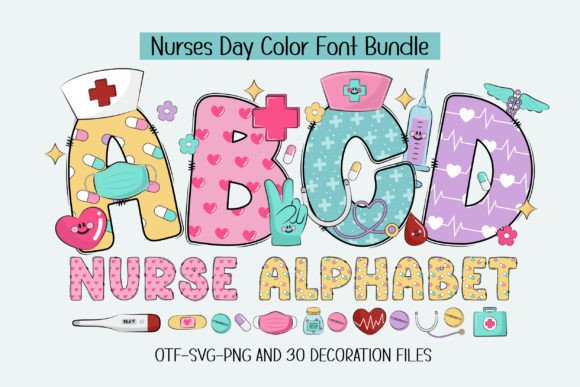
Nurse Alphabet: A Designer’s Honest Review
When I first opened Nurse Alphabet, I was struck by its unusual warmth. It is not often that a display font arrives with such a deliberately soft, approachable presence. The letterforms feel rounded without being childish, generous without being sloppy. There is something almost tactile about the curves—as if the typeface was drawn with a brush that had been dipped in ink and then slightly blotted. It creates an immediate mood: friendly, human, and just a little bit nostalgic. For anyone working on brand identity, logo design, or packaging design that needs to feel personal and trustworthy, this is a typeface that signals care.
Nurse Alphabet belongs to a growing category of color fonts, which means it carries built-in texture, shading, or layered detail. That is both its strength and its limitation. In projects where you want the lettering to do the heavy lifting—where you do not have budget for illustration or elaborate ornamentation—this font can stand alone and still look finished. It is not a neutral workhorse. It is a character. And like any strong character, it works best when you give it room to speak.
Where Nurse Alphabet Naturally Belongs
If you are designing a logo for a small bakery, a children’s brand, a wellness studio, or a handcrafted product line, Nurse Alphabet instantly fits. Its personality is gentle and confident. It does not shout. It invites. That makes it ideal for product labels, packaging design, and merchandise where you want the customer to feel something before they read a single word. I can see it on a jar of honey, a tube of organic lip balm, a tea box, or a set of recipe cards.
It also works well in editorial design when used as a headline or pull quote accent. Paired with a clean serif font or a restrained sans serif font, it introduces contrast without chaos. The trick is to treat it as a premium font—one that should appear intentionally, not everywhere.
For social media graphics and digital ads, Nurse Alphabet holds its own at larger sizes. Its built-in color and texture can reduce the need for additional graphic elements, which speeds up production. If you create Canva templates or printable design assets for other small business owners, this font gives you a ready-made visual hook. The same goes for Cricut projects, where the layered details in the color font can translate into interesting cut or print-then-cut results.
Where to Use It with Care
No typeface is perfect for every job, and Nurse Alphabet asks for thoughtful placement. It is a display font. That means it is not built for long reading passages, dense body copy, or small sizes. If you try to set paragraphs in it, readability will suffer, and the visual charm will turn into visual noise. Keep it for large headlines, short phrases, brand marks, quotes, and decorative accents.
It also works well as a supporting text element—for a single word on a poster, a subhead on a flyer, or a signature-style closing on an invitation. In those roles, it feels intentional rather than overwhelming. The moment you push it into territory that belongs to a more neutral typeface, you risk undermining the very warmth that makes it special.
For premium packaging or editorial design, Nurse Alphabet can elevate the tone when used sparingly. On a product label, a single word set in this font can feel like a hand-stamped mark. On a website header, it can create a memorable first impression. But if every headline is set in it, the effect fades.
Readability, Hierarchy, and Brand Consistency
Readability at display sizes is strong. The letterforms are distinct, and the built-in texture does not interfere with legibility when the font is rendered large enough. However, at small sizes—anything below 24 points, depending on the medium—the details begin to blur. That is typical for color fonts, and Nurse Alphabet is no exception. If you need a font for primary body copy or for tiny legal text on a package, look elsewhere. Pair it with a dependable serif font or a clean sans serif font for those roles.
Hierarchy becomes easier when you use Nurse Alphabet as the anchor. Let it hold the visual weight of the headline while simpler typefaces handle the subheadings and body copy. I have tested it alongside a range of partners: a neutral sans serif font like Work Sans, a warm serif font like Cormorant, a script font that echoes its hand-drawn feel, and even a handwritten font for a layered, informal look. Each pairing gives a different emotional result. The key is to respect the contrast—do not pair it with another typeface that competes for attention.
Brand consistency relies on knowing when to repeat a font and when to let it rest. If Nurse Alphabet becomes the sole voice of your brand identity, every piece of communication will carry its personality. That can be powerful for a small business or a lifestyle brand. But for larger organizations or projects that demand tonal range, it works better as a signature accent—reserved for the logo, key headers, and select marketing visuals.
Practical Designer Notes
Before committing Nurse Alphabet to any client work, I recommend a few simple tests. First, render it in black and white. Even though it is a color font, you need to know how it reads without its built-in color layers. Some color fonts lose their shape when flattened to monochrome. Check that the letterforms still hold up. Second, test it at small sizes on a mockup. Print it. Look at it on a screen at 100% zoom. If the details become muddy, adjust your minimum size accordingly.
Nurse Alphabet is not a font you use because you need to fill space. It is a font you use because you want to say something specific about warmth, care, and craftsmanship. It has limits—every display font does—but within its range, it delivers a distinct and usable personality. For small business owners, content creators, and designers who work on brand identity, packaging, or digital products, it offers a ready-made emotional shortcut. Test it. Pair it thoughtfully. Use it where it earns its place.